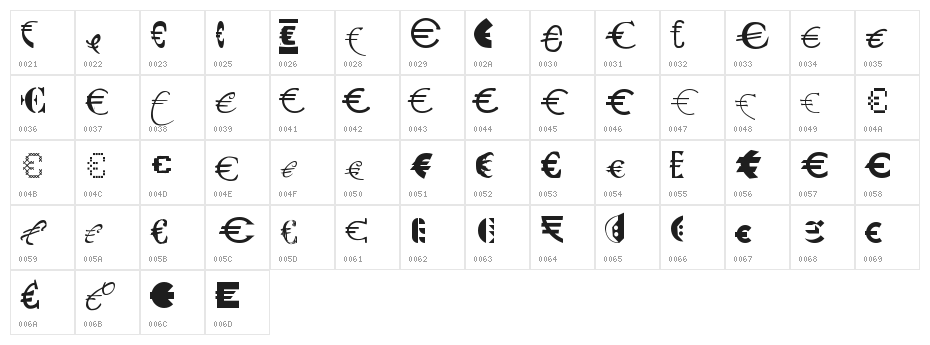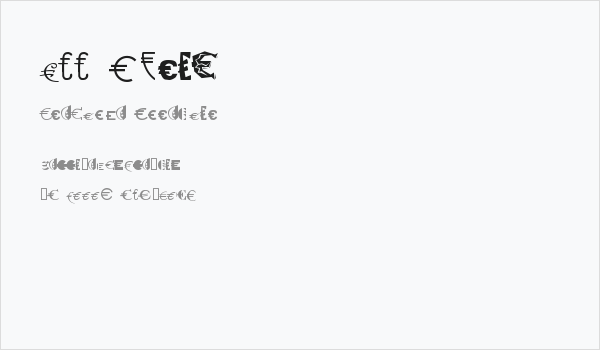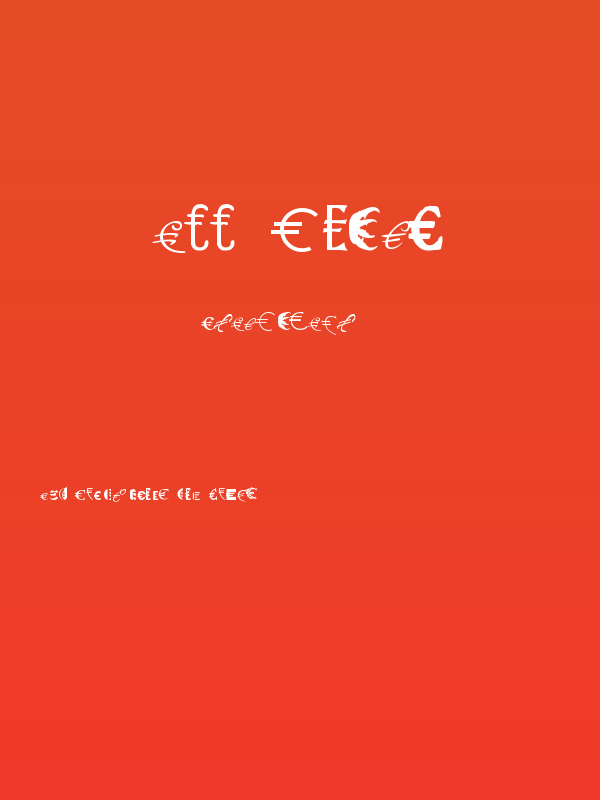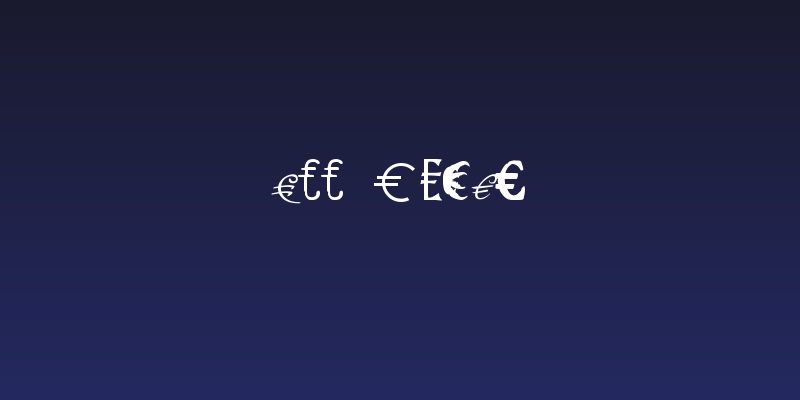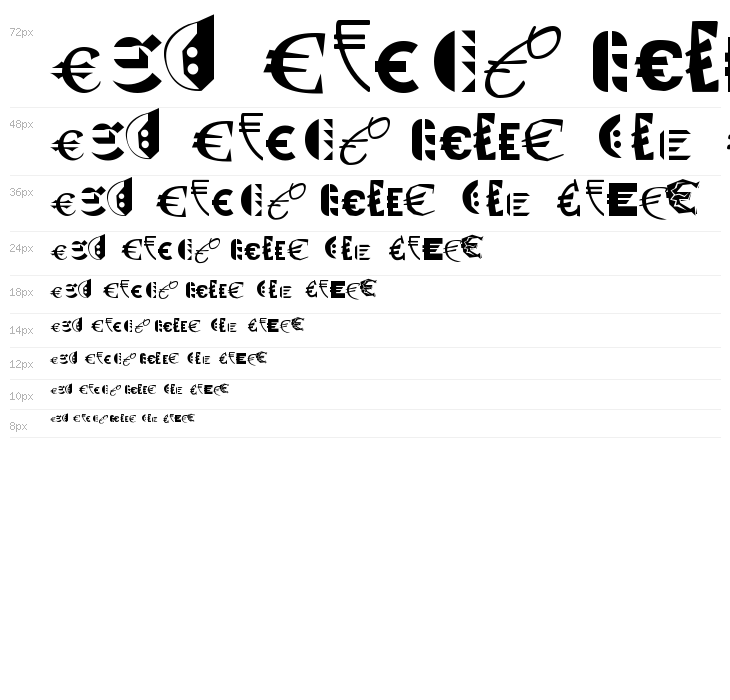
P22 Euros Font
P22 Euros Description
This is a highly creative and decorative font that features a variety of unique and artistic interpretations of the Euro currency symbol. Each character is distinct, showcasing different styles ranging from abstract and geometric to more fluid and organic designs. The font lacks uniformity, with each symbol presenting a different visual concept, making it ideal for artistic and experimental projects. The diversity in design offers a playful and imaginative approach, perfect for projects that require a bold and unconventional aesthetic.
| Use Case | Logos, Art projects, Experimental design |
| Proposed Projects | Ideal for creative projects such as graphic design, branding, art installations, and experimental typography projects. |